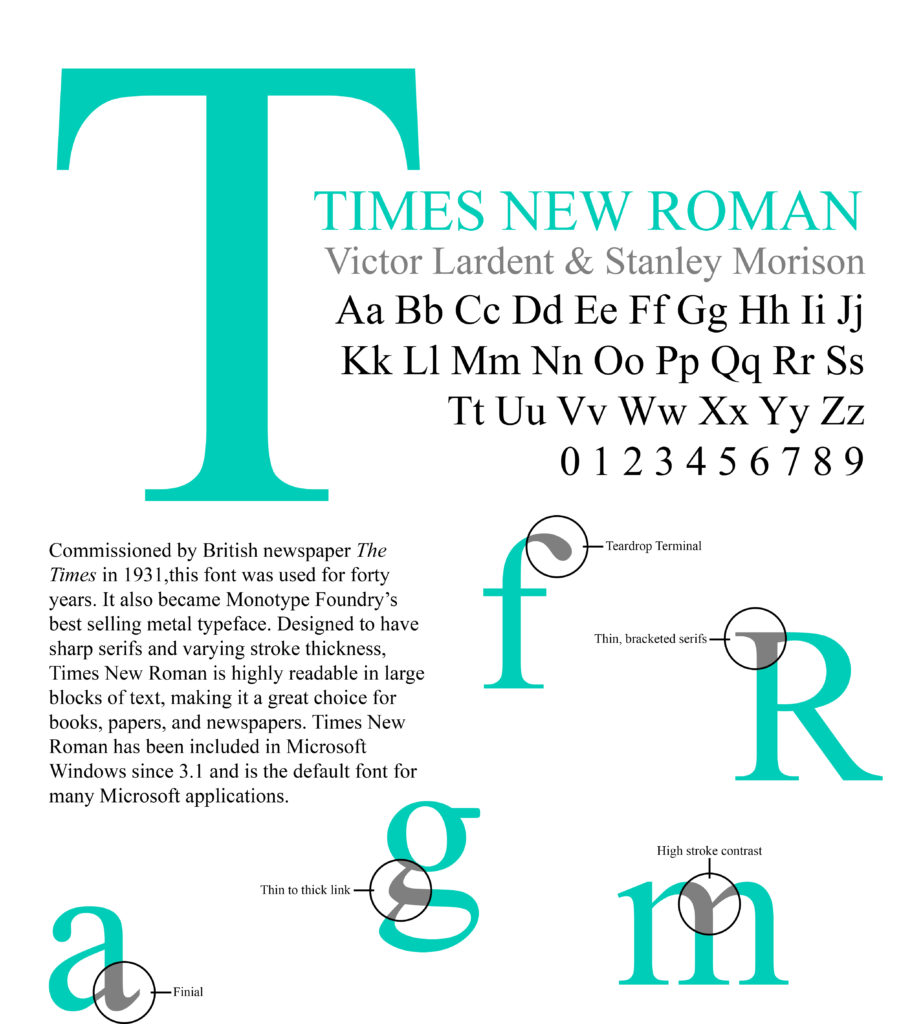
Font of the Week — Times New Roman
FOTW Times New Roman
Times New Roman was created in 1931 for the British newspaper, The Times, by Victor Lardent. Times New Roman is best known for it’s use in Microsoft applications, like Word. Thanks to it’s highly readable nature, Times New Roman can be used for various print needs— from books all the way up to large print needs, like billboards.